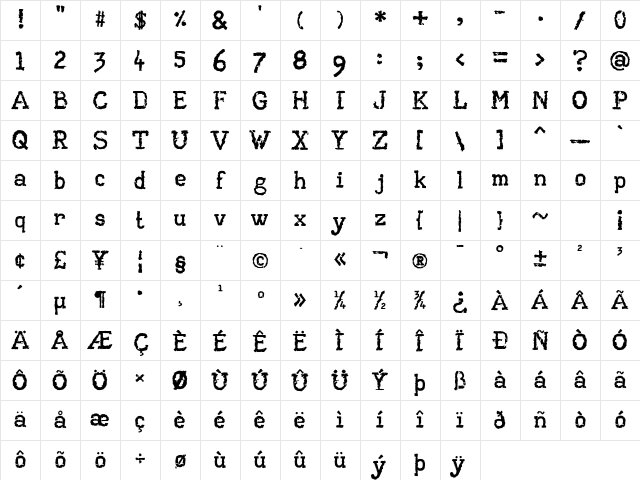
AA Typewriter Regular
Foundry: Attila Acs
Designer: Attila Acs
Complete AA Typewriter Regular glyph index. Displaying only characters natively supported by AA Typewriter Regular font.
Design Context for AA Typewriter
AA Typewriter uses fixed-width spacing throughout, giving it the structured, systematic character associated with coding environments and technical documentation.
Who designed the AA Typewriter Regular font?